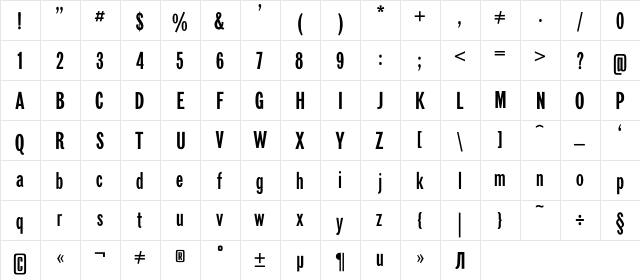
GazetaSansC Regular
Design Context for GazetaSansC Typeface
GazetaSansC takes a measured approach to typography — its balanced proportions and neutral character make it a reliable workhorse for both digital and print work.